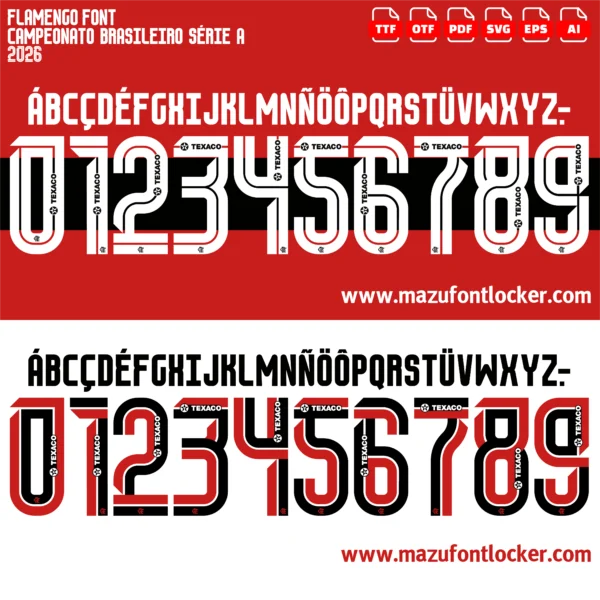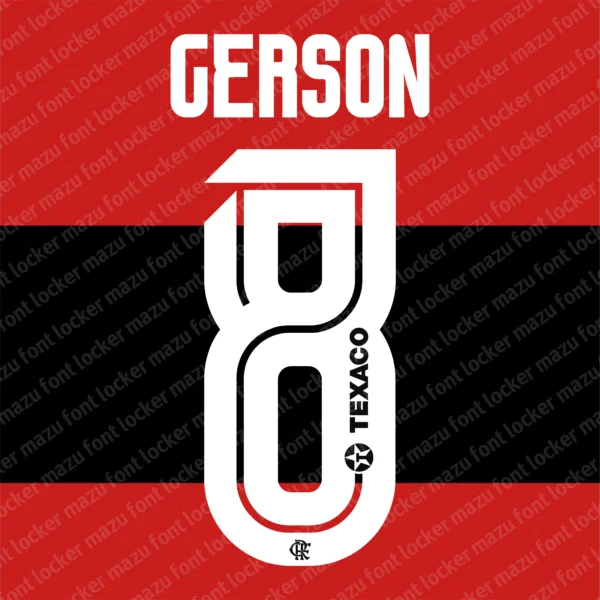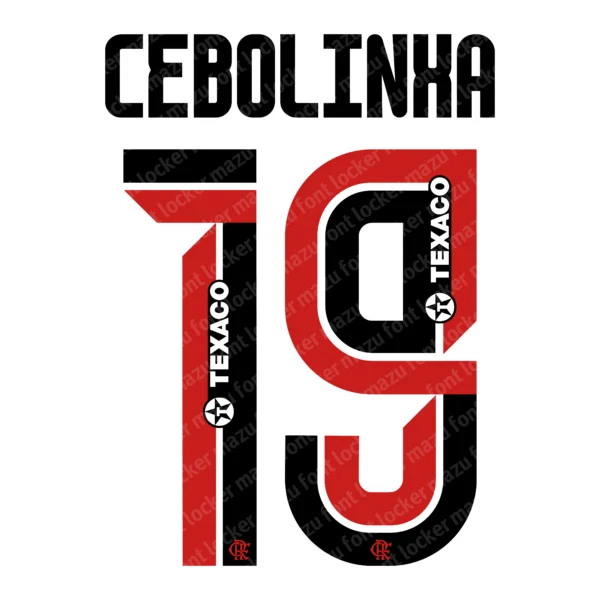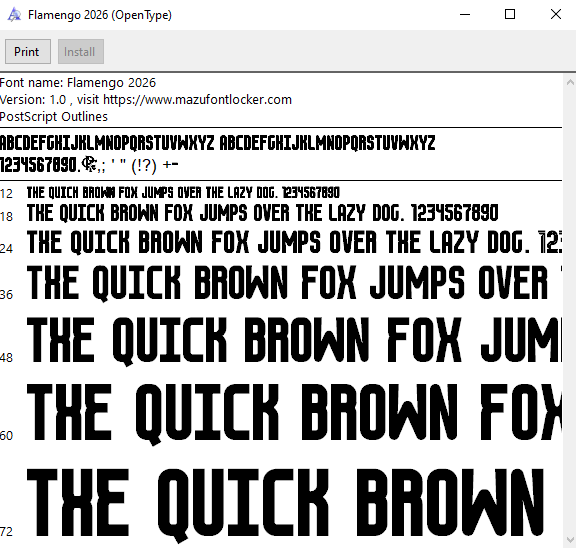
Flamengo 2026 Font Vector – Stunning Rubro-Negro Masterpiece
This font captures the razor-sharp, explosive, high-voltage lettering that embodies Flamengo’s proud club identity, rich Brazilian football heritage, iconic red-and-black tradition, and unstoppable fighting spirit — delivering premium quality and pure explosive energy for jersey mockups, football graphics, sports branding, and fan creations.
Flamengo 2026 Font Vector – Rubro-Negro Heritage Typeface
The Flamengo 2026 Font Vector is a premium typeface that accurately recreates the official match lettering worn by Flamengo during their 2026 campaign. This high-quality vector font kit captures the bold, clean, and instantly recognizable typography that perfectly complements the club’s iconic red and black identity.
Why Choose Flamengo 2026 Font Vector
This font stands out thanks to its precise vector construction and authentic club-inspired styling. Every letter and numeral has been meticulously recreated to match the official shirt lettering used throughout the 2026 season and associated campaigns. Whether you’re producing professional kit templates or creating eye-catching football content, the Flamengo 2026 Font Vector delivers a genuine match-ready appearance inspired by the proud identity of the Mengão.
The lettering featured in the Flamengo 2026 Font Vector combines clean geometric lines with powerful modern proportions. The result is a premium and highly readable typeface that reflects Flamengo’s fighting spirit, attacking football, resilience, and proud championship heritage.
- Complete uppercase A–Z alphabet and numbers 0–9 in authentic Flamengo 2026 style
- Special Flamengo badge glyph – Press the “:” (Colon) key to insert the club crest